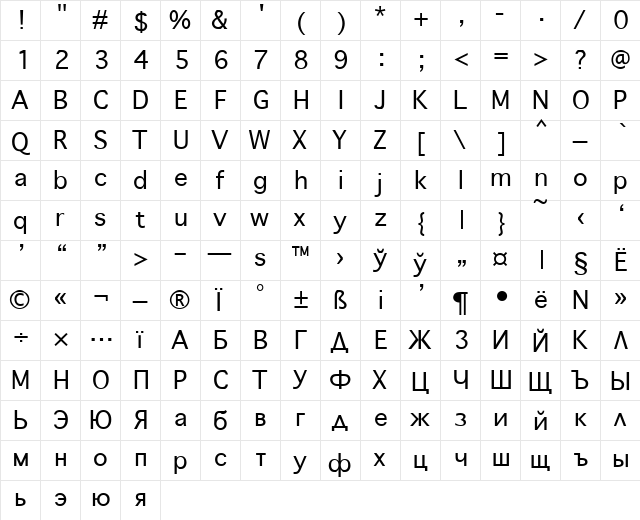
Geneva Plain Font Preview
Geneva Plain
Design Context for Geneva Typeface
Geneva takes a measured approach to typography — its balanced proportions and neutral character make it a reliable workhorse for both digital and print work.